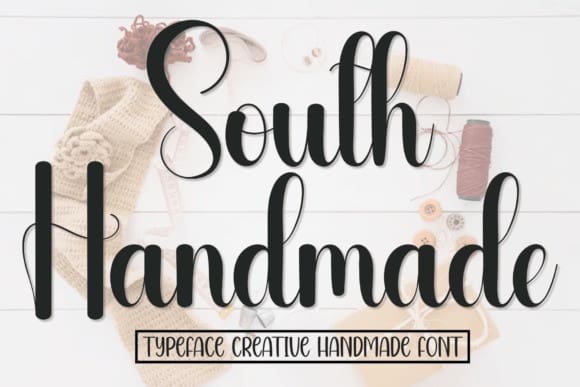
South Handmade Font
South Handmade Font is a sweet and friendly handwritten font. Fresh and neat, this font is ideal for writing wedding invitations, cards, or any other design that might need a fun touch.